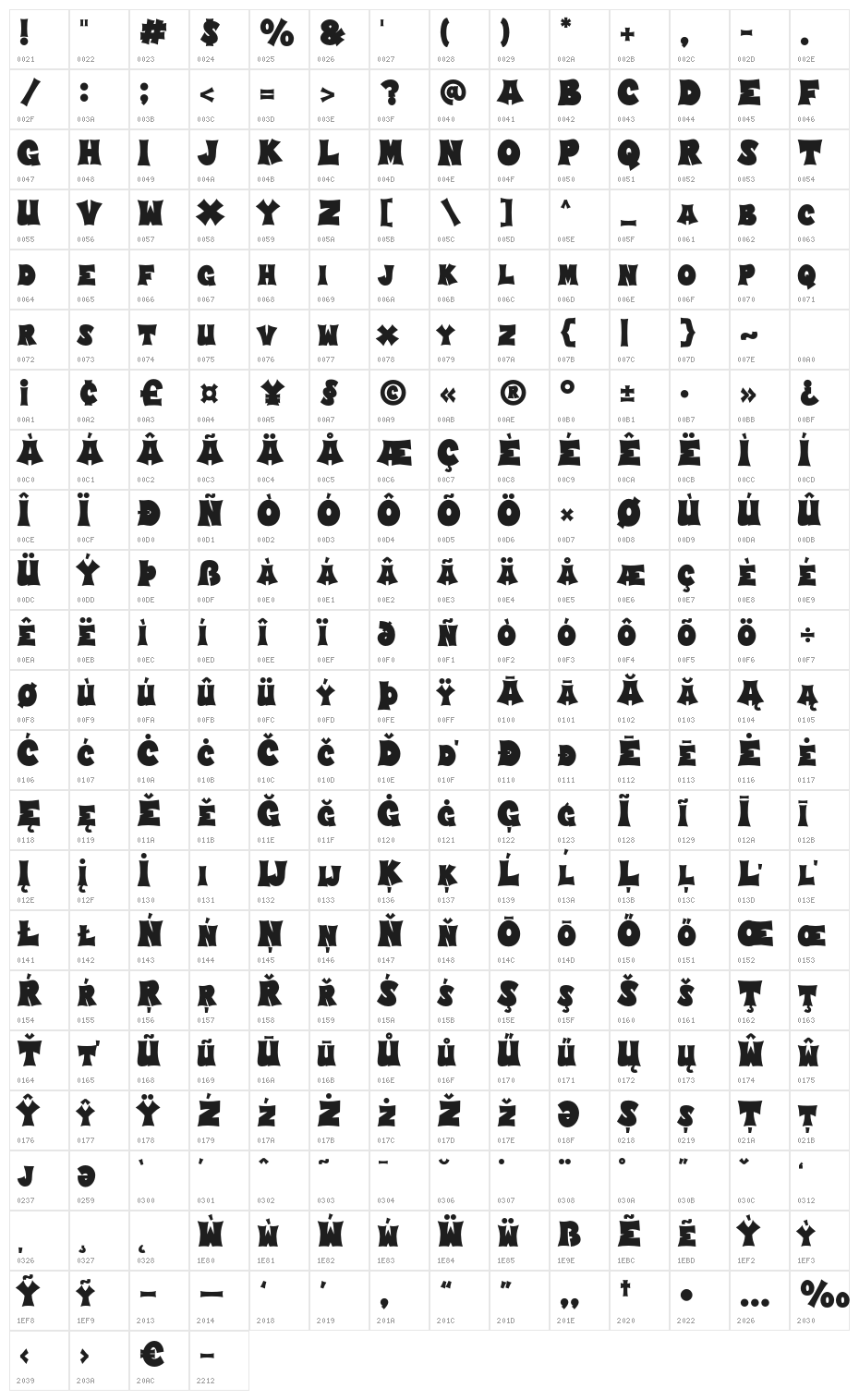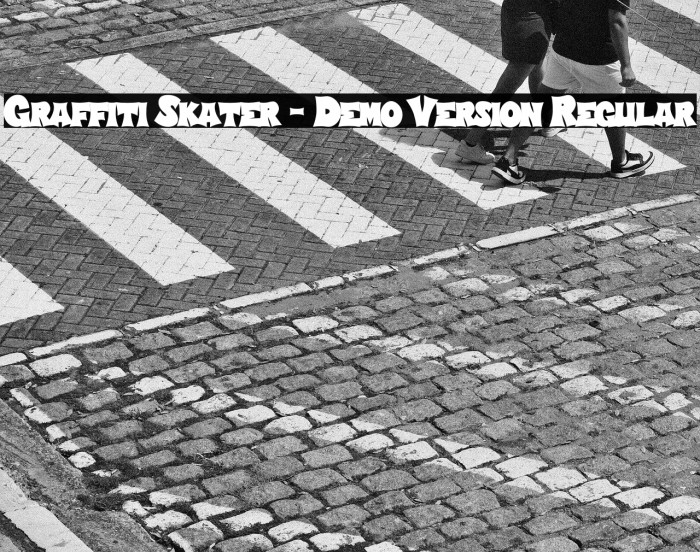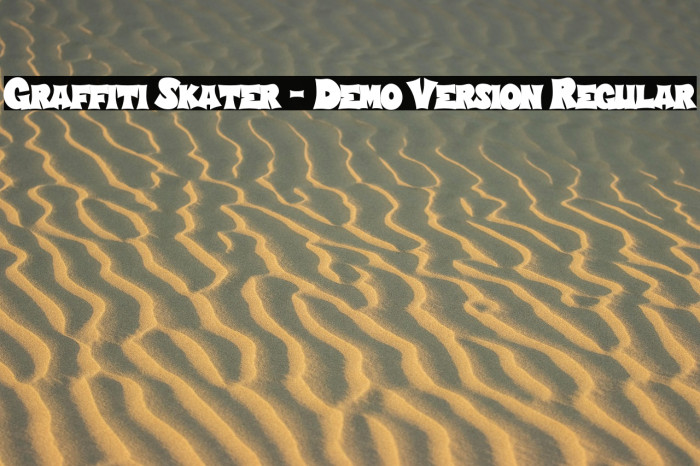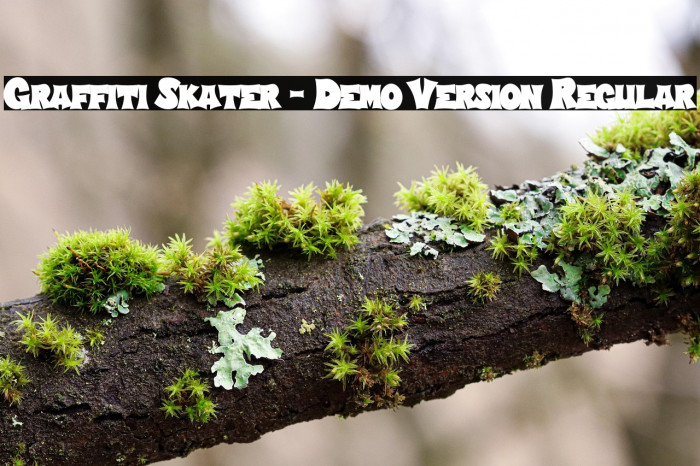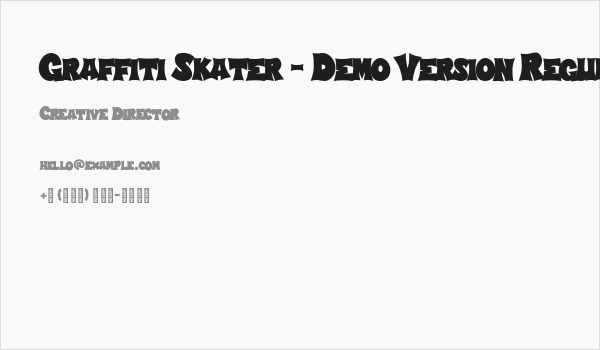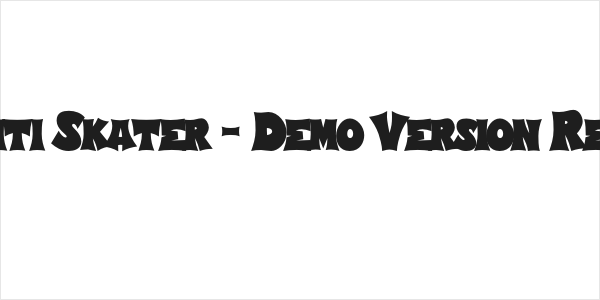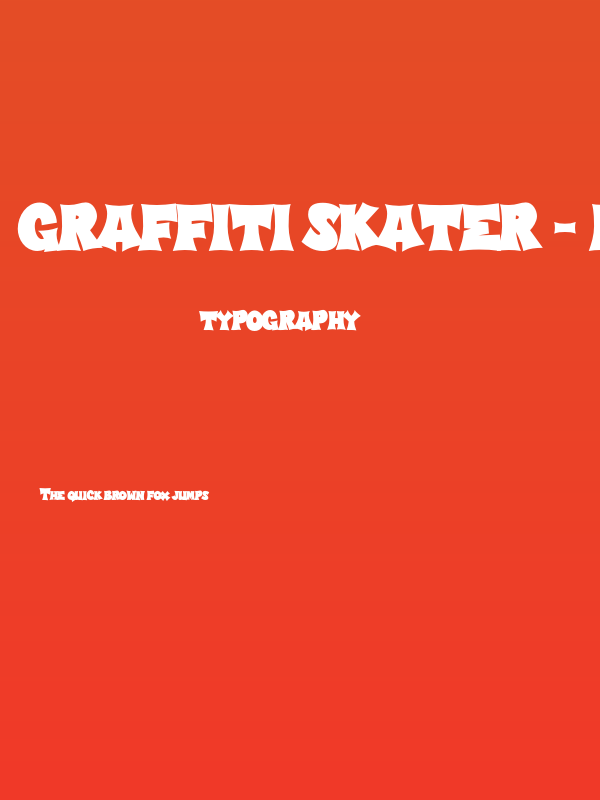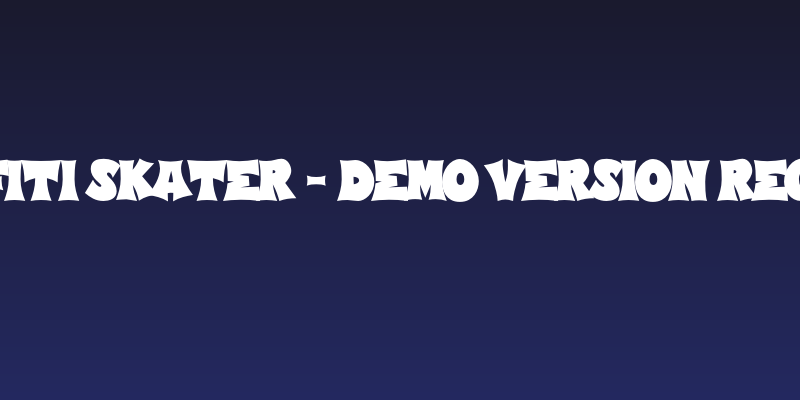
Graffiti Skater - Demo Version Regular Font
Graffiti Skater - Demo Version Regular Description
This font embodies a bold and dynamic graffiti style, characterized by its sharp, angular edges and thick strokes. The letters are designed with a sense of movement and energy, reminiscent of street art and urban culture. The uppercase and lowercase letters maintain a consistent style, with exaggerated serifs and a playful, rebellious flair. The font lacks certain special characters, which are replaced by placeholders, emphasizing its focus on artistic expression rather than comprehensive utility.
| Overall Style | Urban, Rebellious, Energetic |
| Use Case | Logos, Posters, Headlines |
| Proposed Projects | Ideal for urban-themed designs, skateboarding event posters, streetwear branding, and music album covers. |